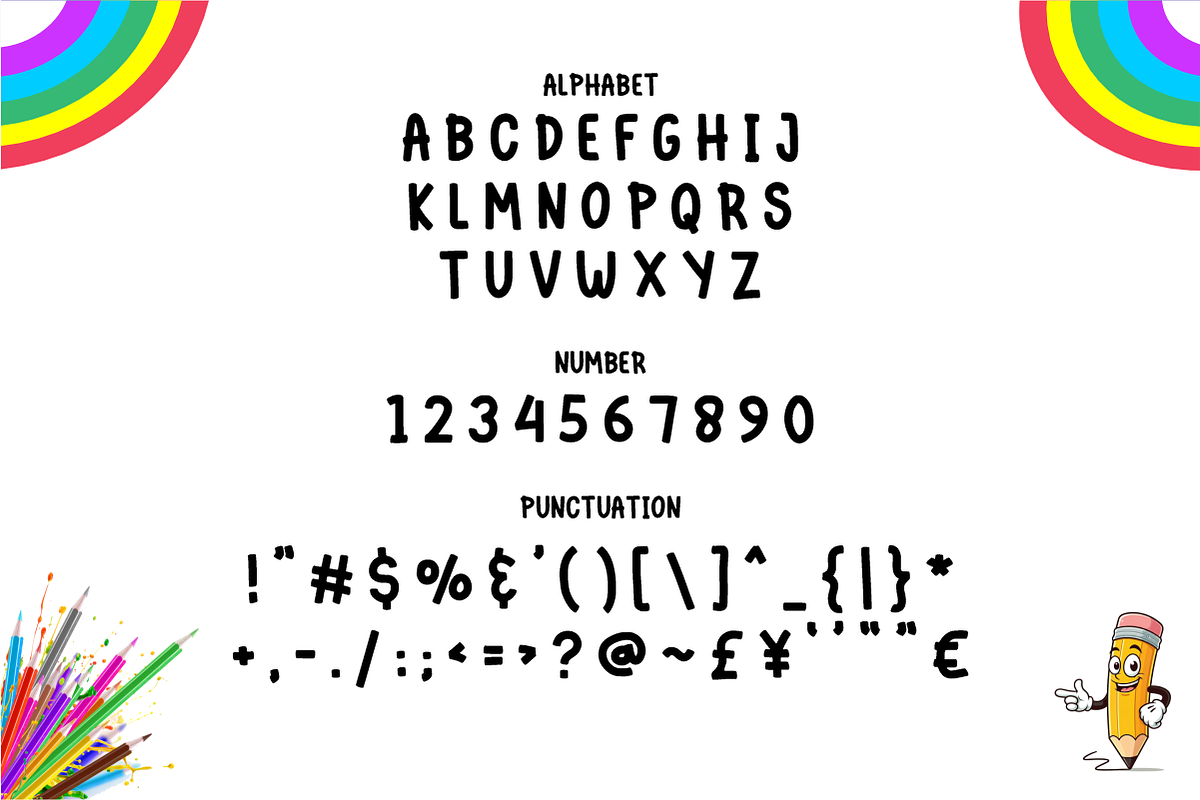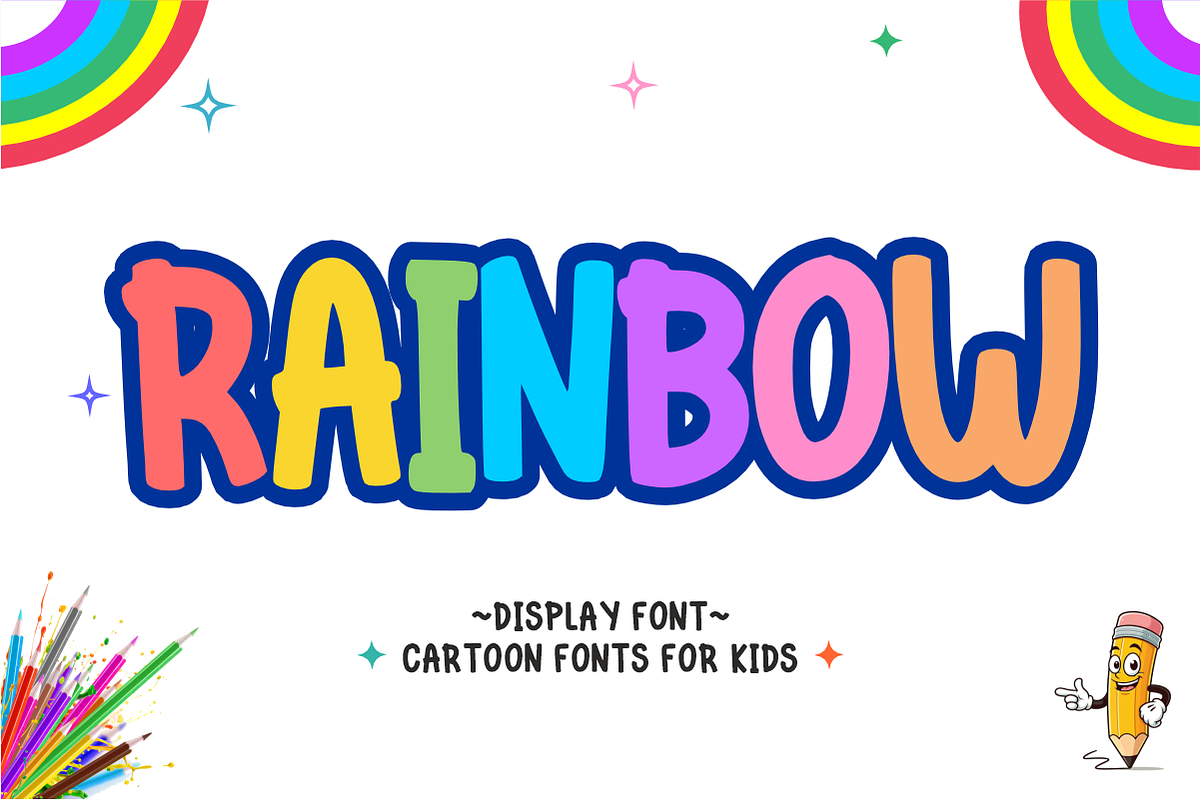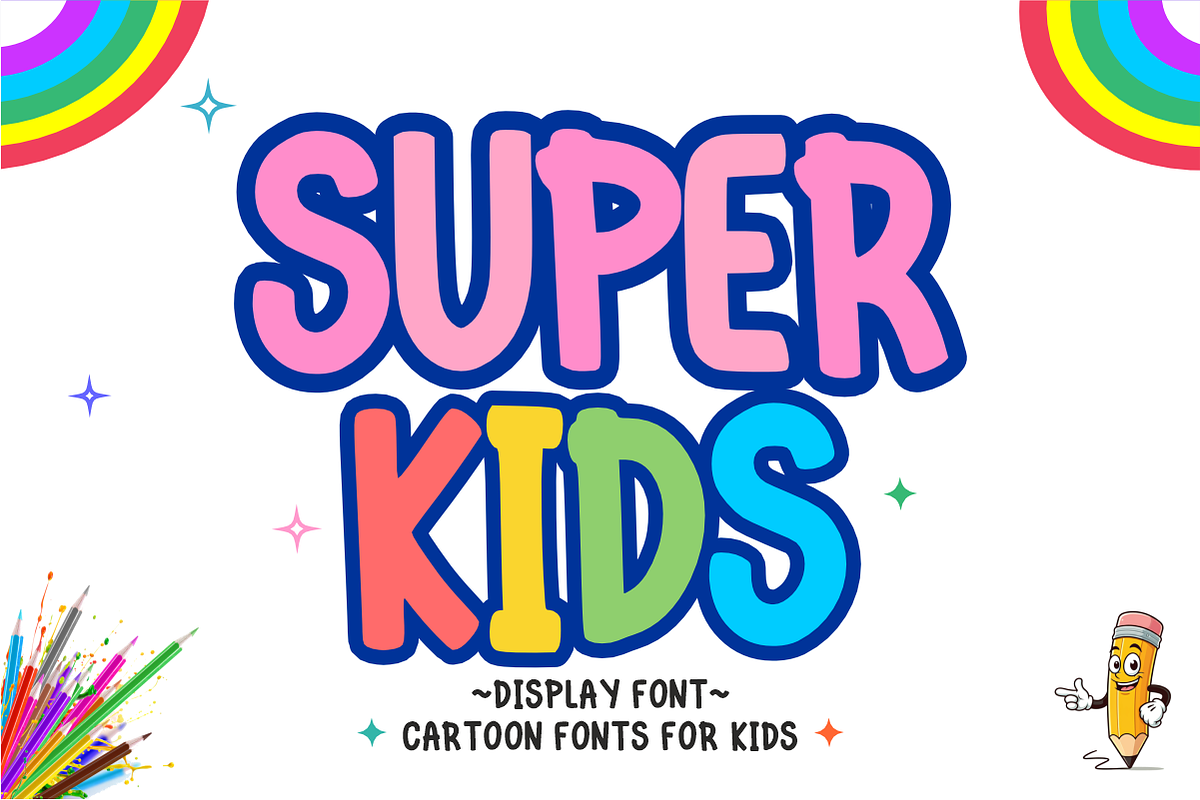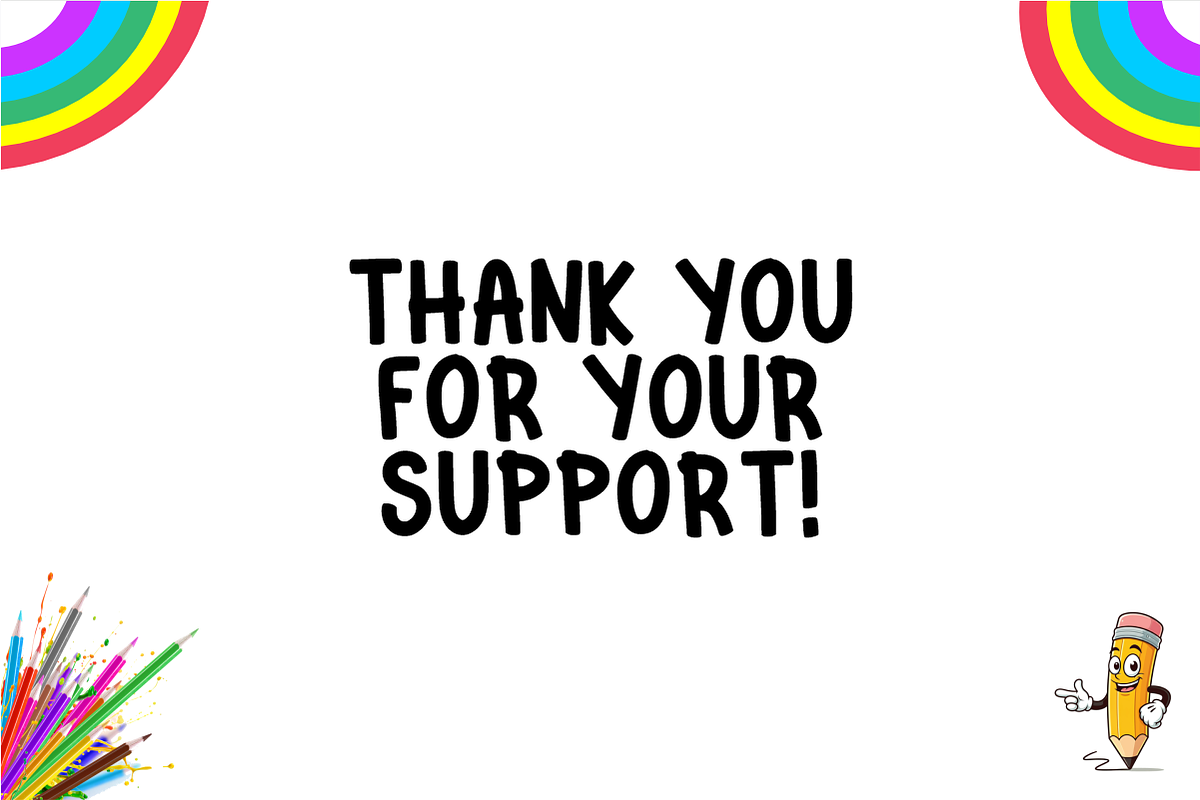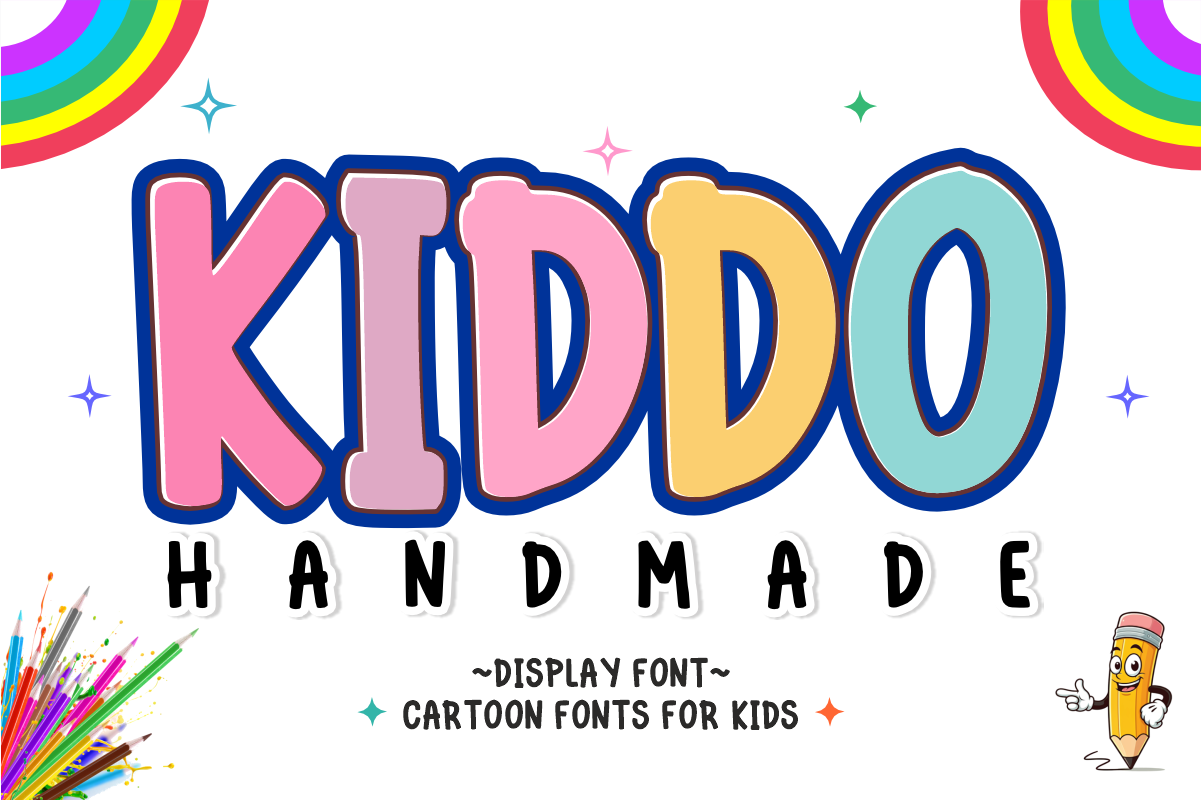
Kiddo Handmade - Cute Kids Font
Kiddo Handmade is a playful, chunky, and cheerful cartoon display font designed to bring instant energy and warmth to children's creative projects. Featuring bold, rounded handwritten letterforms with a sweet craft-ready feel, this font is ideal for school worksheets, cute sticker packs, kids' apparel, and storybook titles. Every character is cleanly vectorized to guarantee high-resolution prints and smooth, effortless cutting on Cricut and Silhouette machines.
Uppercase Character Set
Numbers & Basic Punctuation
Ideal For:
Teachers Pay Teachers (TpT) learning resources, classroom bulletin boards, flashcards, and school activity sheets
Children's storybook titles, cartoon logos, toy packaging, and kids' party stationery
Cricut, Silhouette, and HTV vinyl crafting for kids' t-shirts, tote bags, custom mugs, and pencil cases
Custom die-cut sticker packs, planner decals, and digital scrapbooking layouts
Etsy sellers creating birthday invitations, greeting cards, and nursery decor
Canva template creators designing cheerful social media posts, kids' banners, and event posters